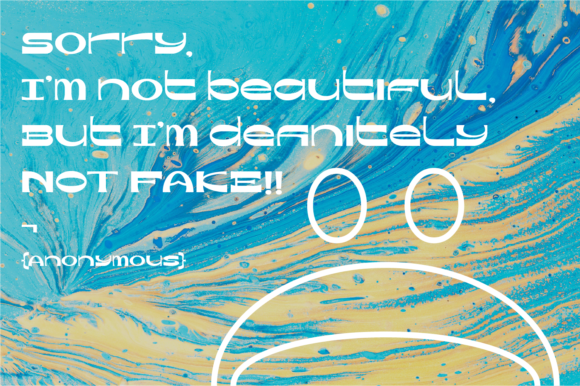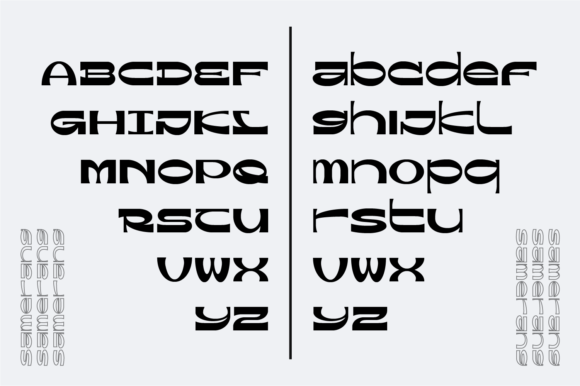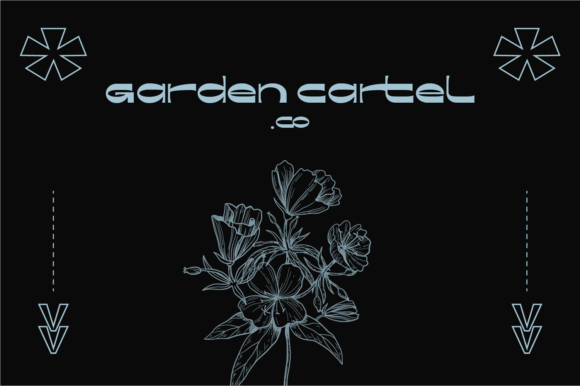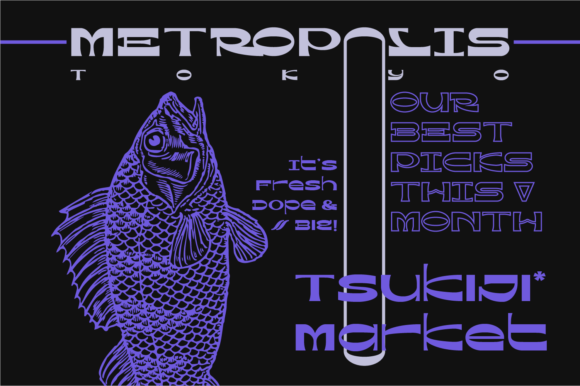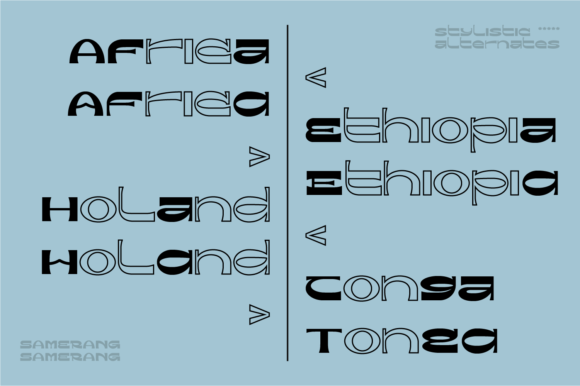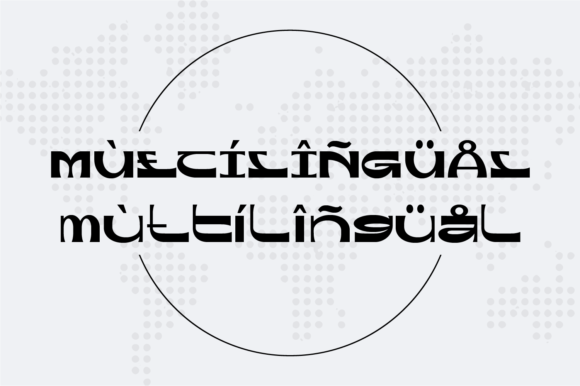
Introduction to Samerang Font
Samerang is a cool and whimsical display font.
This adaptable font will look great on a variety of design ideas It will add a fun and friendly touch to each of your projects.
Samerang Font offers exceptional quality and versatility, making it a valuable addition to your design toolkit. Whether you’re creating for personal projects or commercial use, Samerang Font delivers professional results.